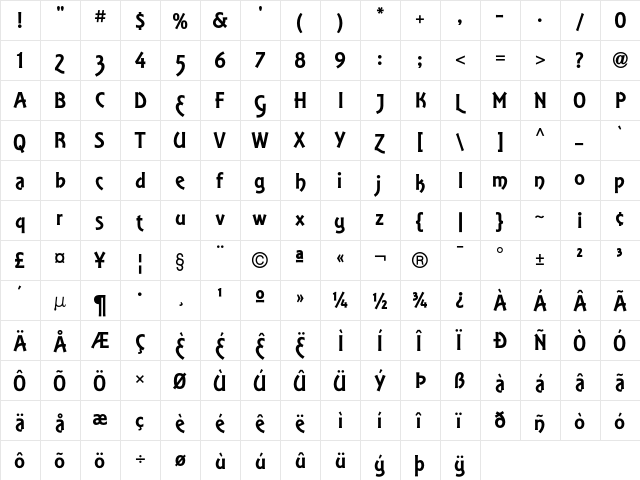
EquinoxICG Alt
Design Context for EquinoxICG Typeface
EquinoxICG offers clean, dependable letterforms without strong stylistic allegiance, making it a practical choice for designers who need flexibility.
Pro Tip: Pair EquinoxICG with a font of contrasting weight or personality to build a more expressive typographic hierarchy.